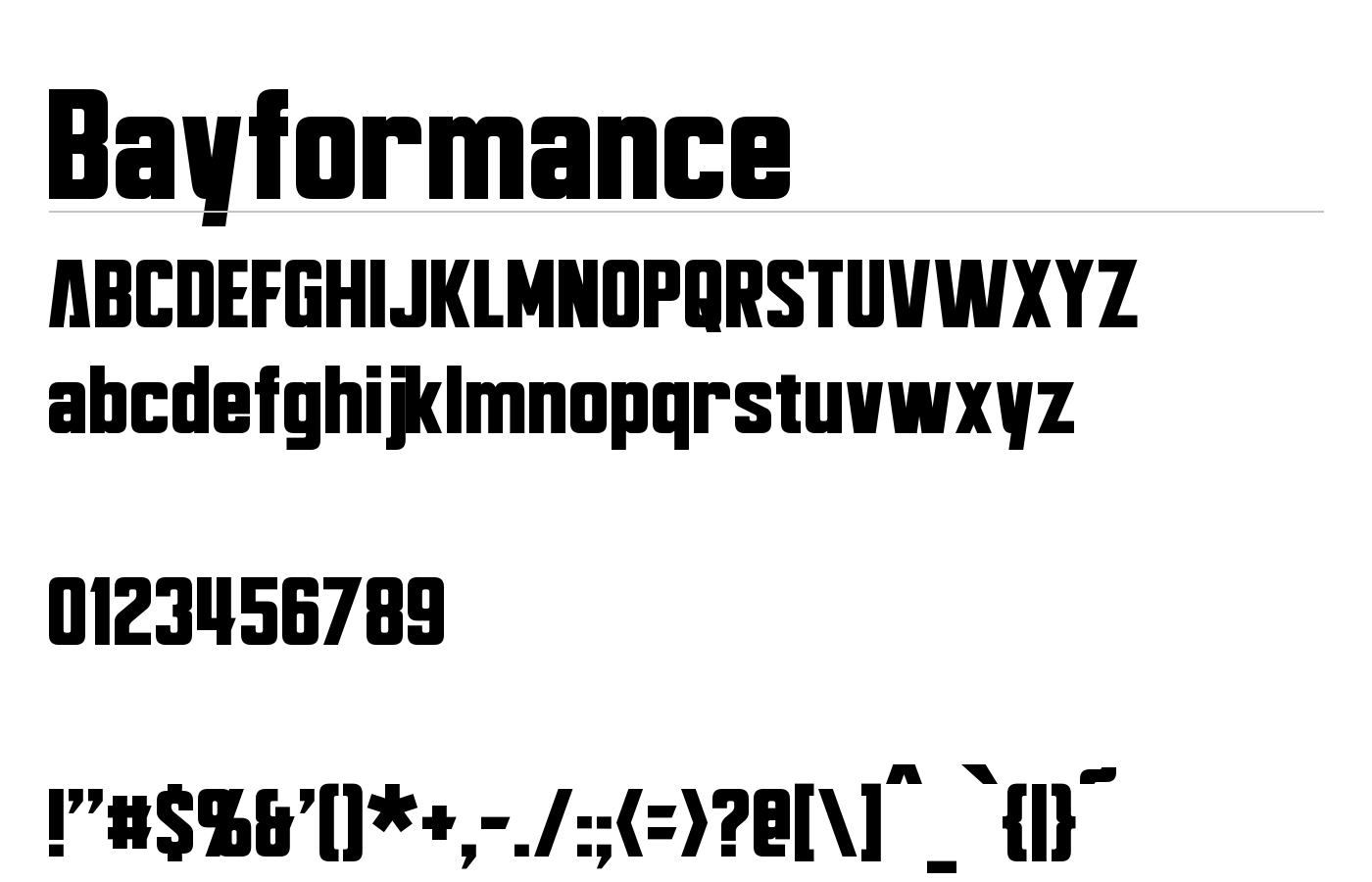
Bayformance is a bold, condensed sans serif font with a strong and modern feel, characterized by its tall x-height and geometric letterforms. The typeface features sharp edges and tightly spaced characters, making it ideal for impactful headlines, branding, and editorial projects where a confident, industrial look is desired. Its sturdy, no-nonsense style works well for sports, technology, or urban-inspired designs seeking a contemporary yet authoritative presence.
Bayformance Font
About Bayformance Font
| Font family | Bayformance Font |
| Designer | Neale Davidson |